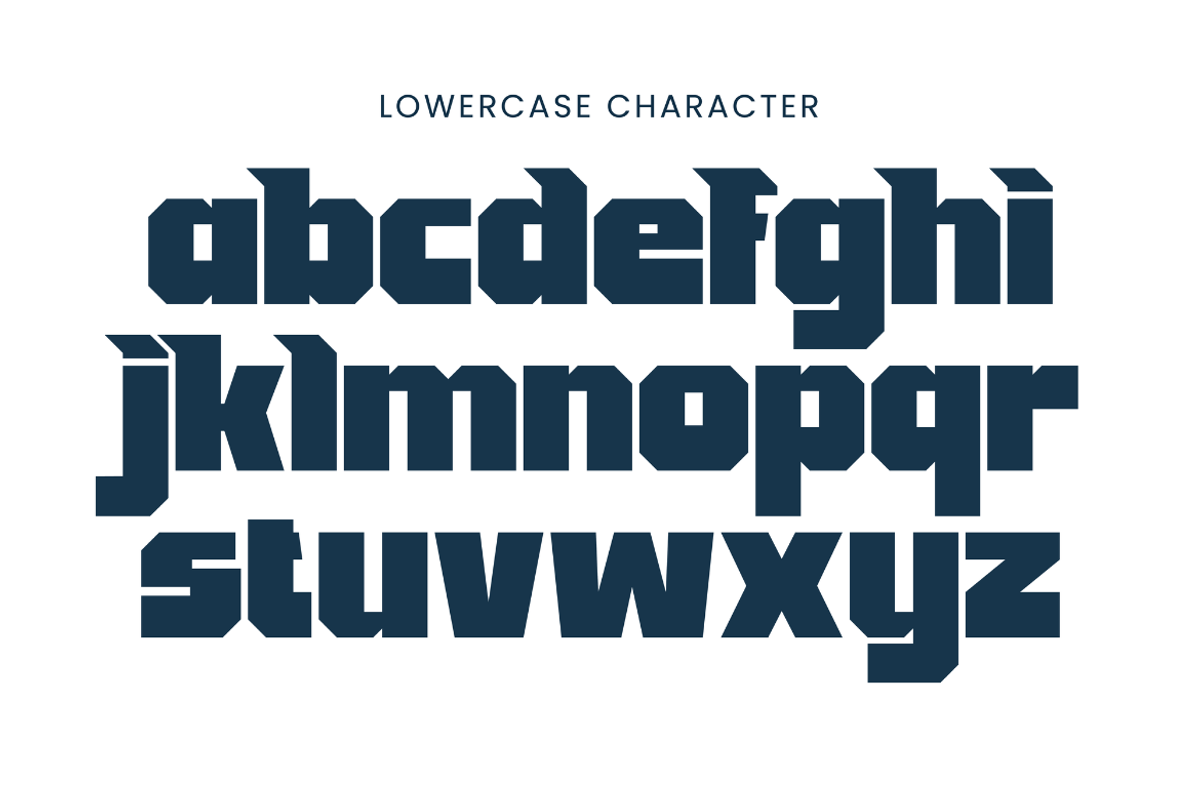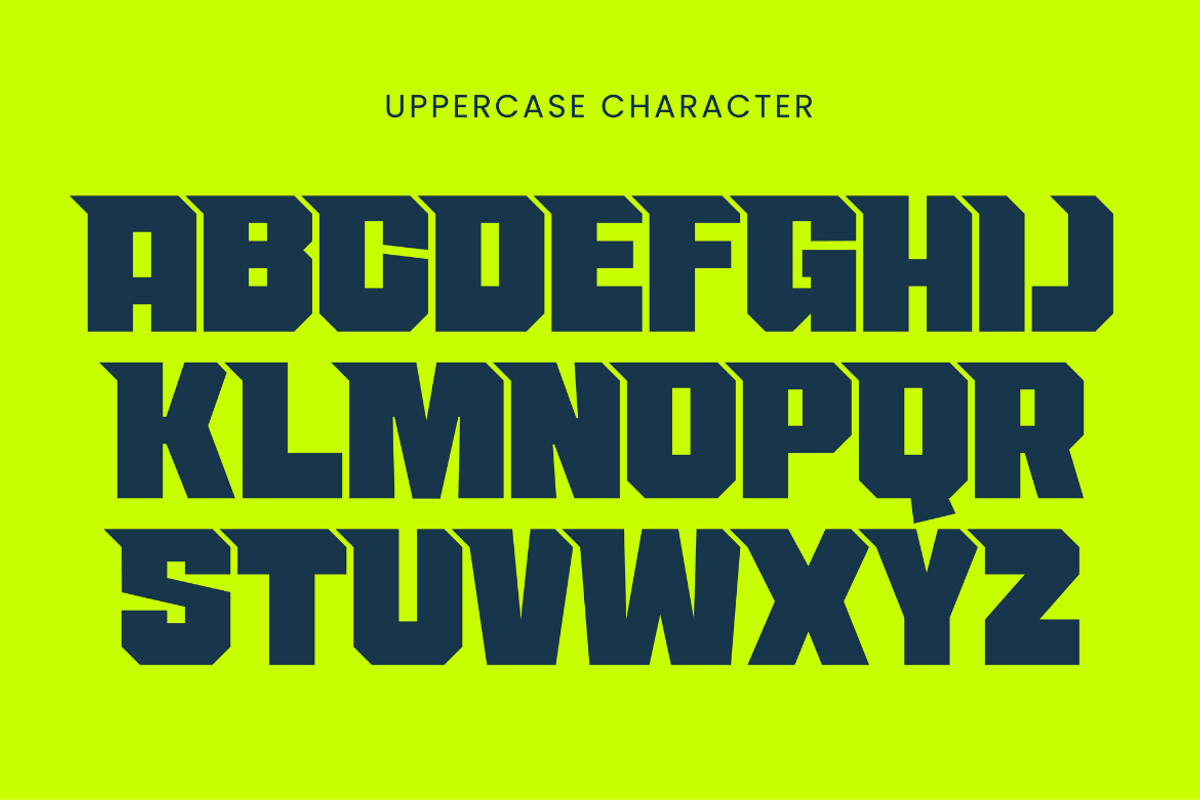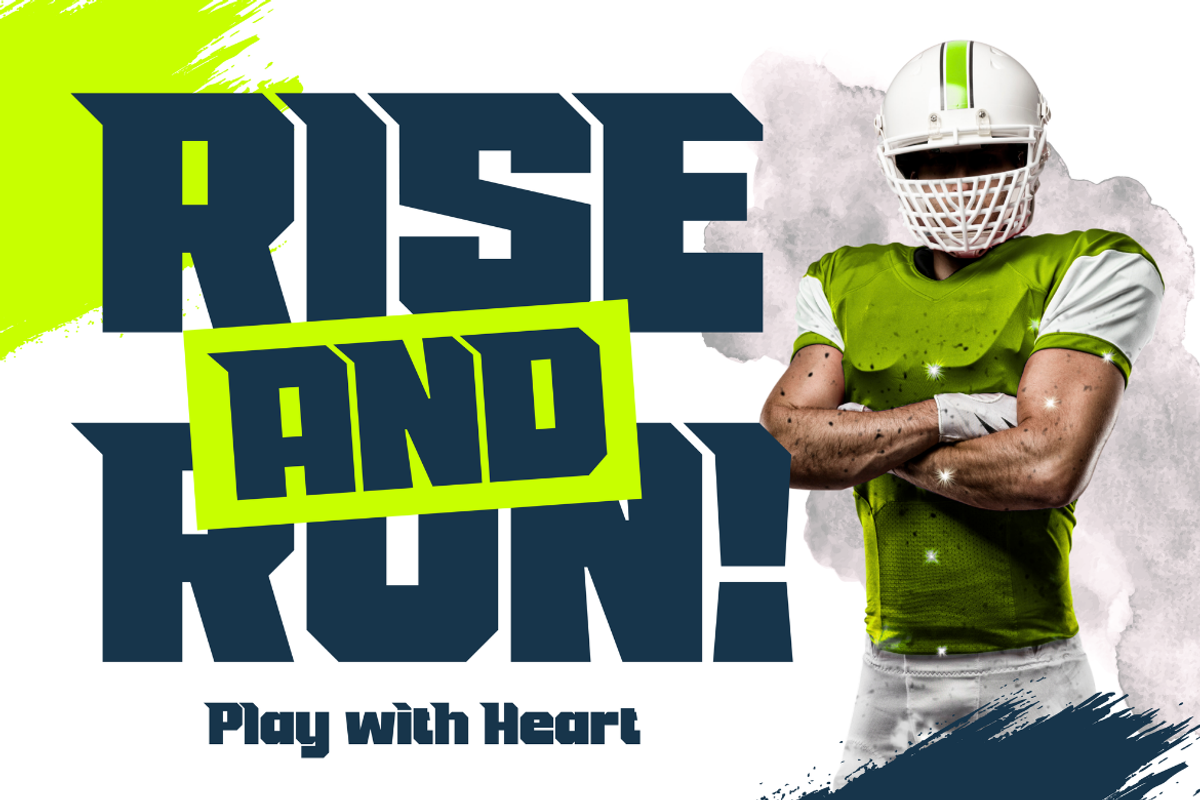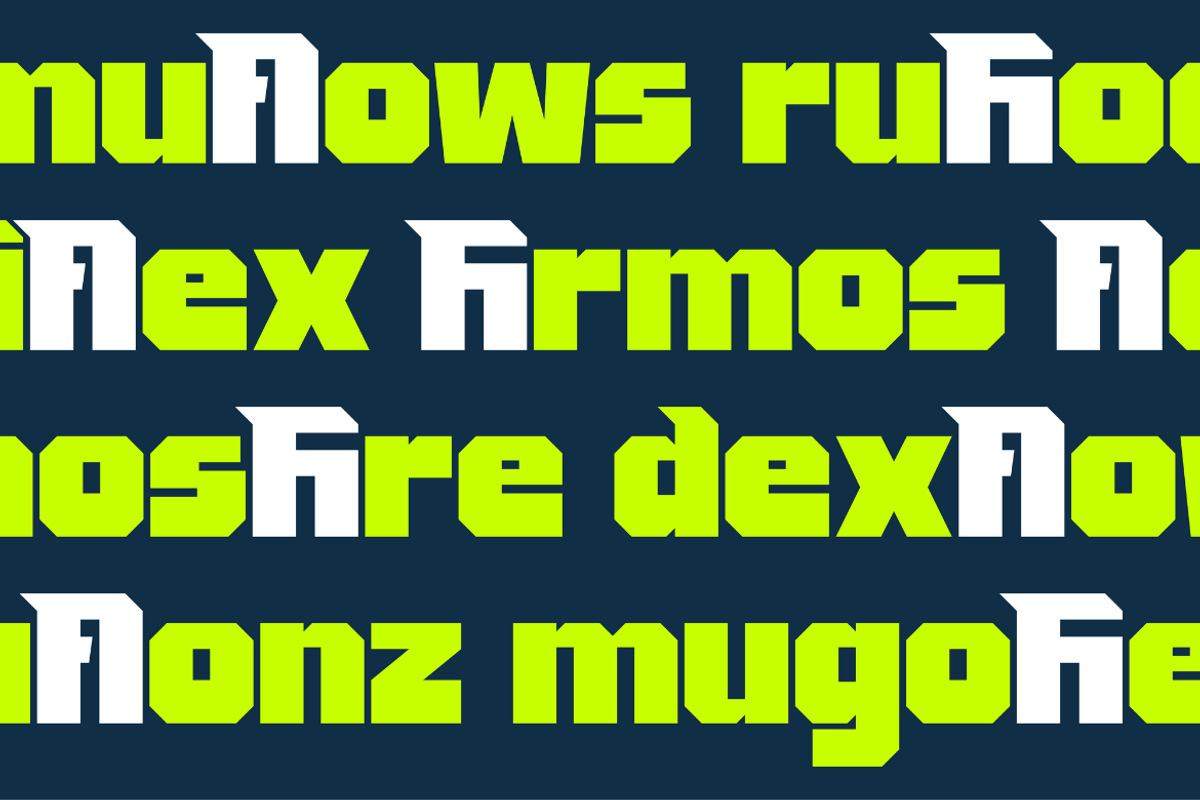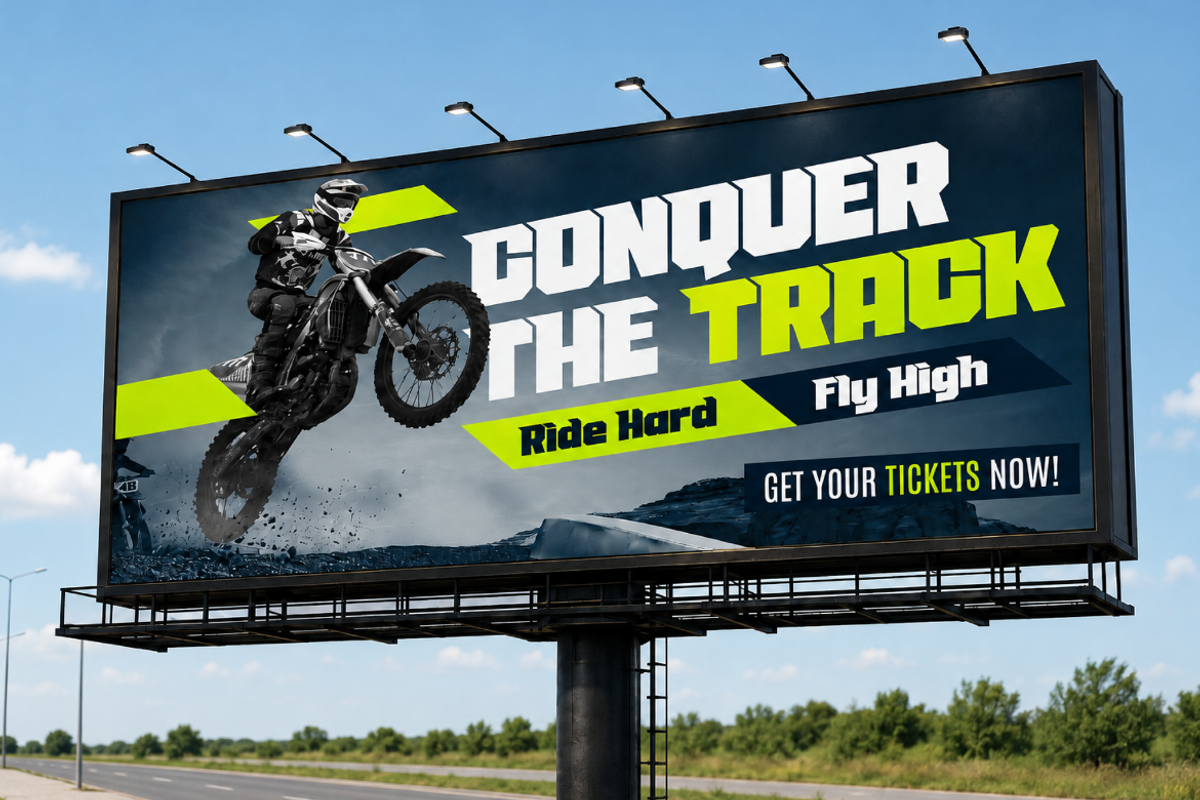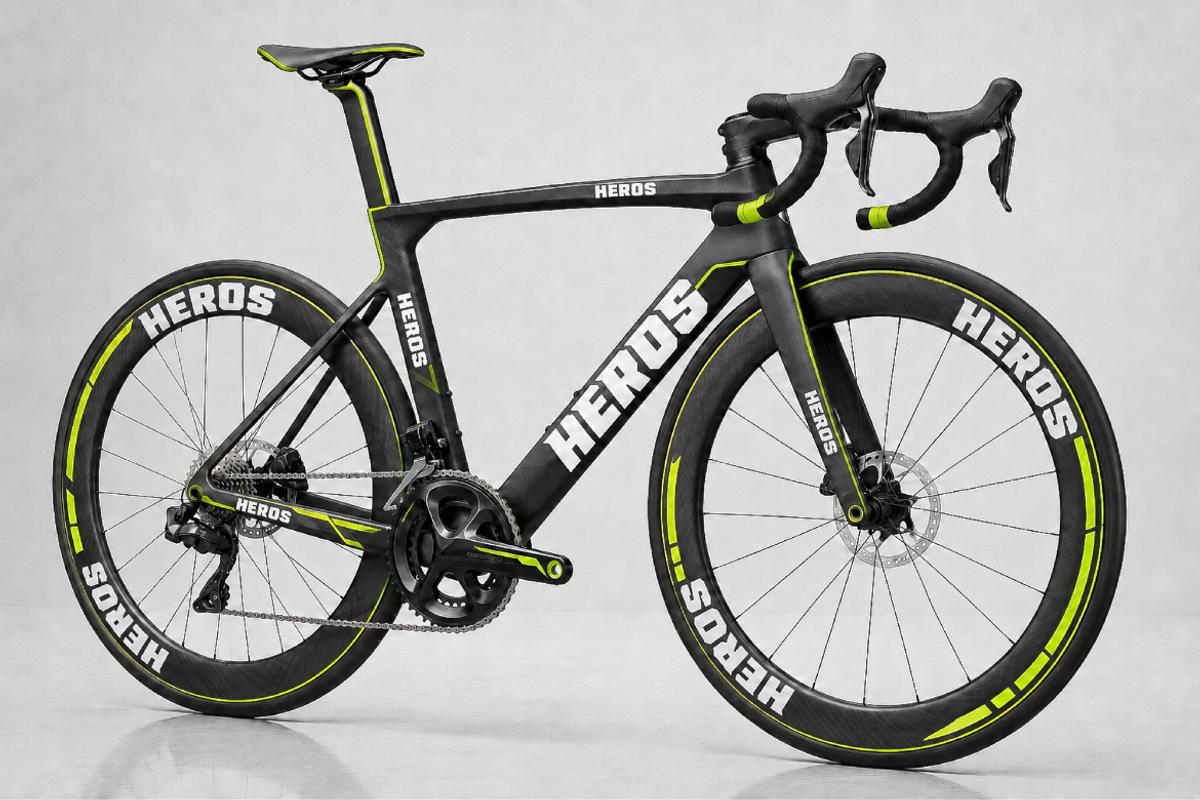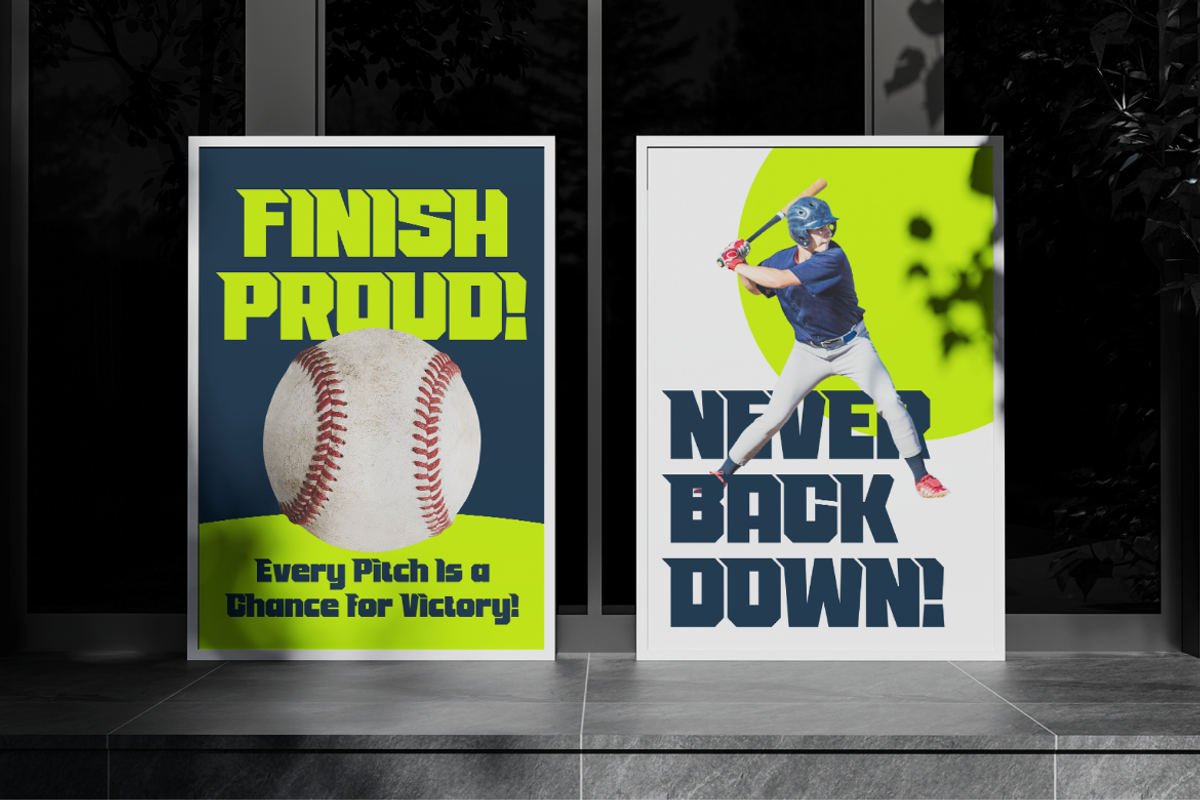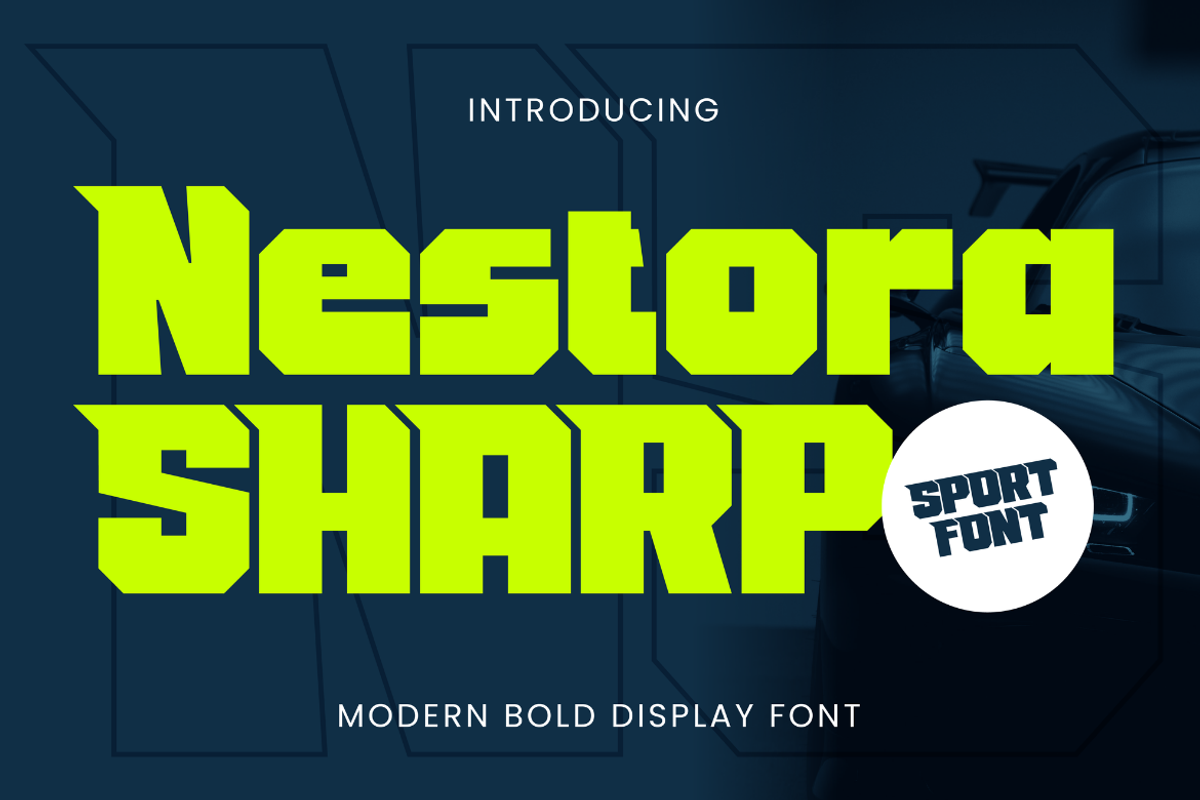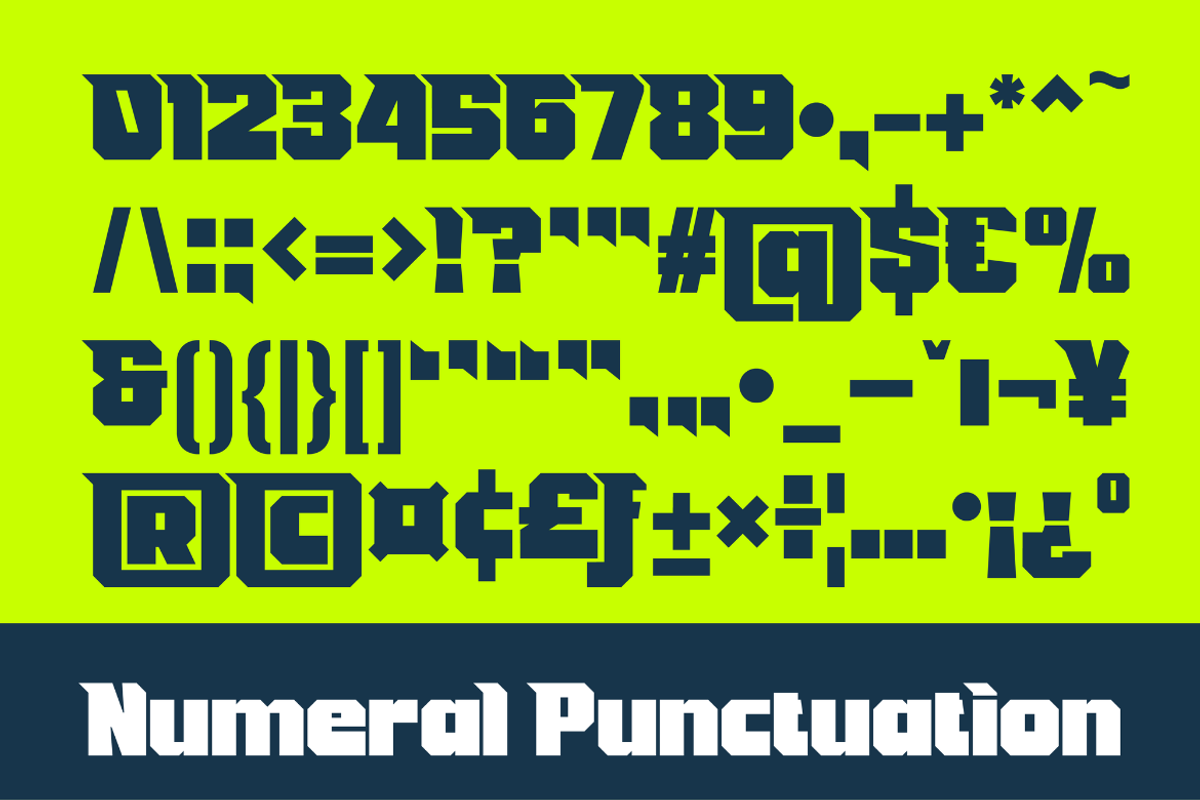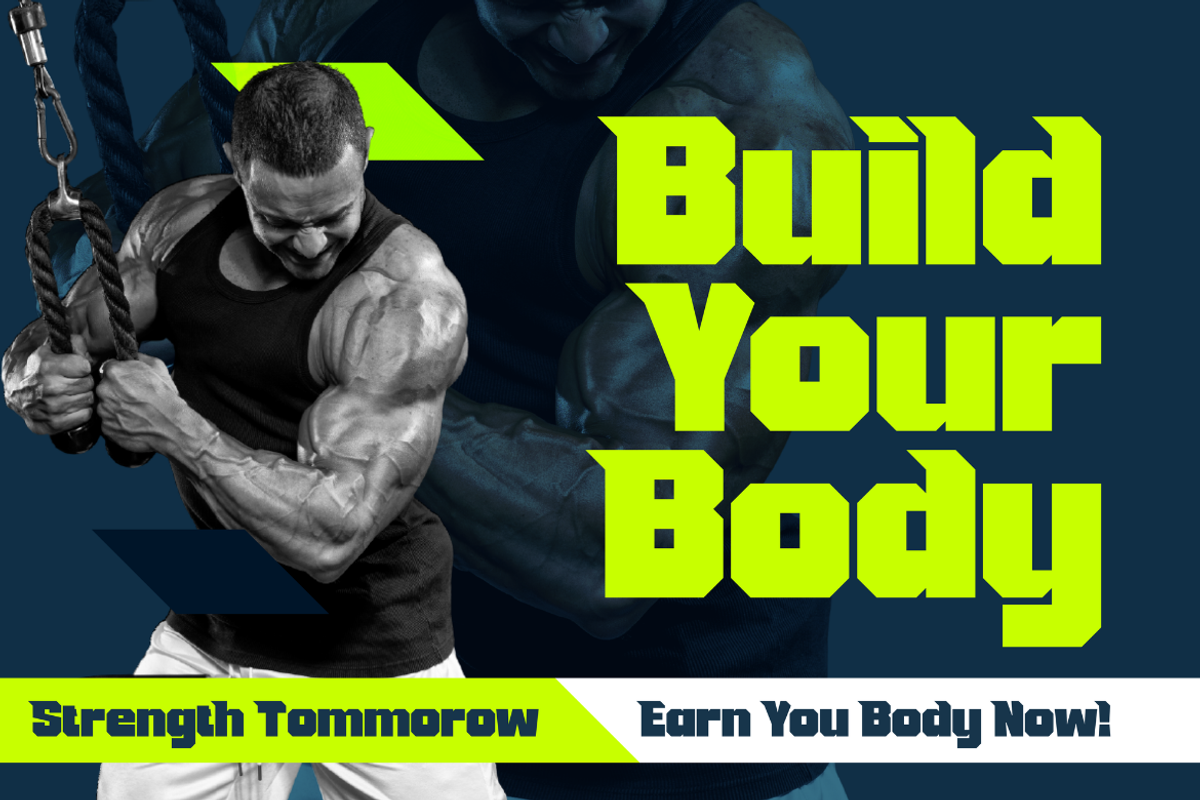
Nestora Sharp
Nestor Sharp is a modern bold display font with a strong sports, gaming, and futuristic industrial aesthetic. It features sharp angular cuts, blocky geometric structures, and powerful letterforms that create an aggressive and energetic visual impact. The strong silhouette and athletic personality make it ideal for designs that require a sense of speed, strength, competition, and performance.
The font combines a tech-inspired style with sports branding characteristics, making it suitable for action-focused visuals, team identities, esports graphics, and dynamic advertising.